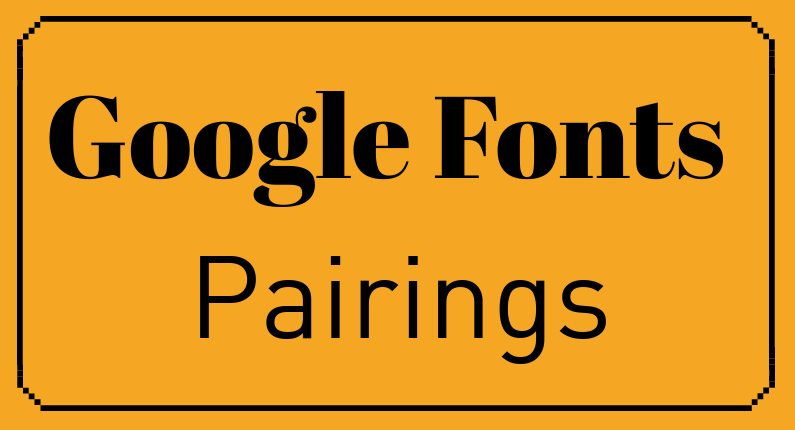
Modern Fonts Google. This perfectly geometric and rounded font designed by milena brandau is gorgeous and perfect for any sort of modern project. Fredoka is great for websites, apps, and any digital designs.
The lighter the weight, the more aesthetically pleasing this font is in nature. Modern fonts are styles that are new to our present time, and differ from the remote past. Italics are not included in the family’s seven weights.
This Perfectly Geometric And Rounded Font Designed By Milena Brandau Is Gorgeous And Perfect For Any Sort Of Modern Project.
This Collection Focuses On Typeface Families From Reputable Type Designers And.
Modern script and modern calligraphy styles are a huge departure from traditional calligraphy and cursive handwriting. Each pairing comes with matching colors to inspire your design. This page is good example of how computer.
Now That You Understand The Human Psychology Behind Fonts, Let Me Present You With The Top 21 Best Google Fonts To Use On A Blog For A Modern Look And A Better User Experience.
Computer modern is the family of typefaces developed by donald knuth for tex. 25+ best modern fonts to use in 2021. The lighter the weight, the more aesthetically pleasing this font is in nature.
The Black Turtleneck Of All Modern Fonts, It’s Timeless, Clean, And Sharp.
Roboto is the most downloaded font on the google fonts website, and it’s not hard to see why.clean, stylish and smart while simultaneously professional and friendly, roboto is the default font for android and chrome os and is the font of choice in google’s material design system. January 11, 2022 january 21, 2022 1980’s fonts 1990’s fonts collections comic sans fonts cute fonts display fonts fun fonts hipster fonts icon fonts italic fonts modern fonts premium fonts retro fonts sans serif fonts text fonts typewriter fonts urban fonts vintage fonts website fonts by hipfonts. Fredoka is great for websites, apps, and any digital designs.
Crimson Text + Work Sans.
It would be awesome to have these available in google fonts. Playfair display is a serif font with an elegant, modern quality that features undertones of femininity. 10 ready to use google fonts combinations for modern websites.